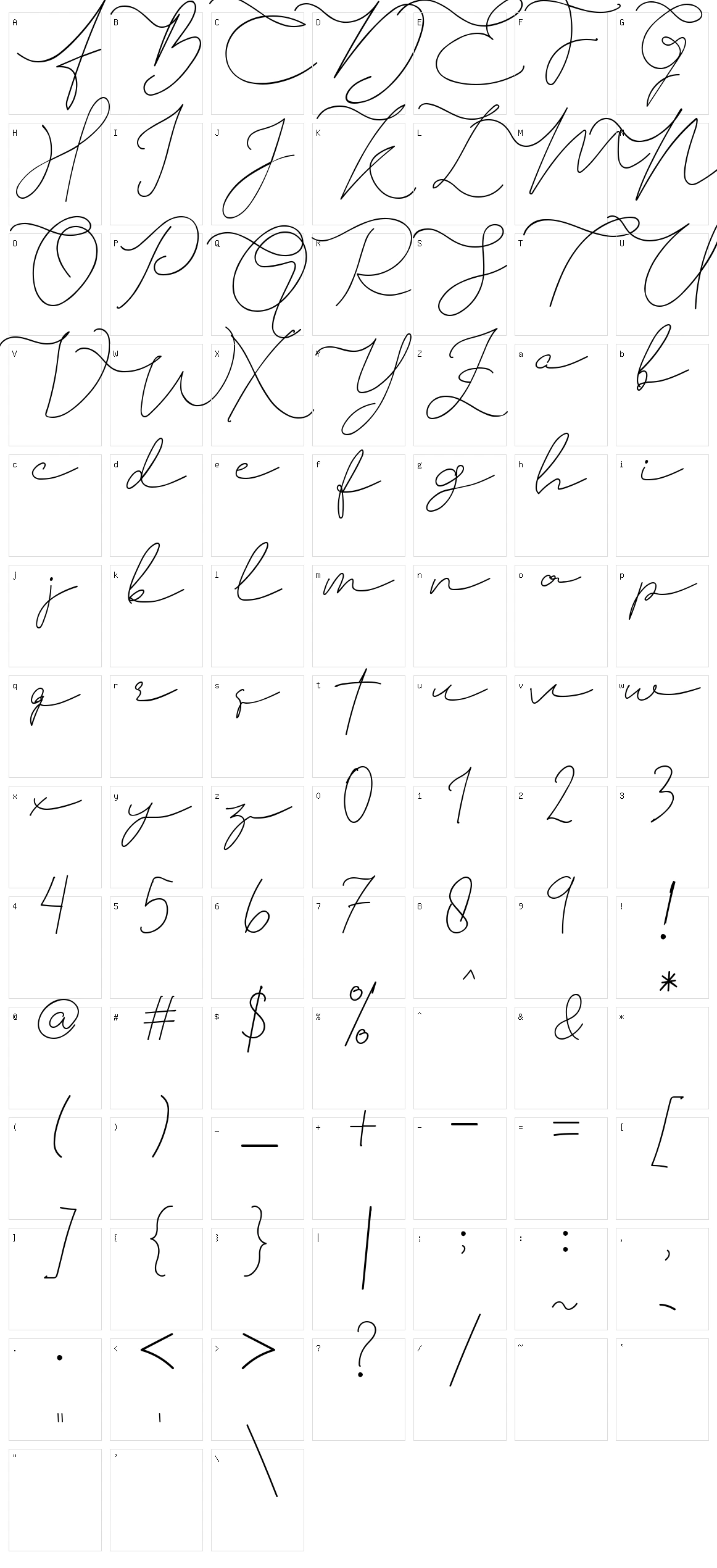
Introducing Thampholine Font
Thampoline is a beautiful signature font, can make your design project look elegant, classy and modern, this font perfect for branding, invitation, stationery, wedding designs, social media posts,
product packaging, product designs, label, photography, watermark, special events or anything.
Thampoline comes with full set of uppercase and lowercase letters, ligatures, alternate styles symbols and numerals